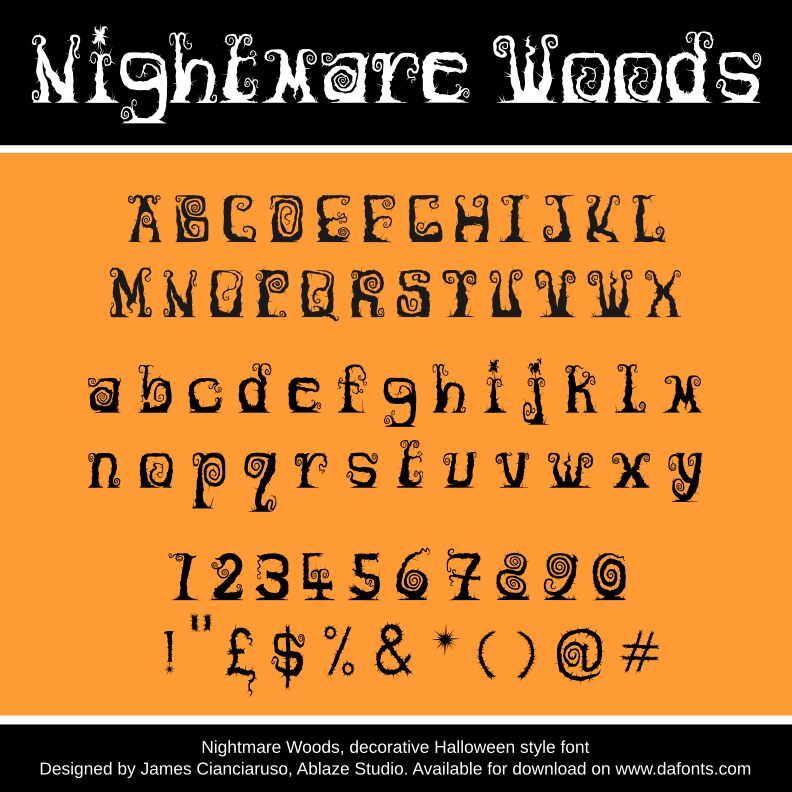
Nightmare Woods
Nightmare Woods, a haunting creation by James Cianciaruso of Ablaze, exudes an ominous allure. This distinct font captivates with its sharp, jagged edges and sinister flourishes, evoking a sense of darkness and mystery. The intricate, organic-inspired designs seamlessly blend together, forming a captivating visual tapestry that sends a chill down the spine.
This font's versatility shines through, making it a compelling choice for a wide range of design applications. From Halloween-themed branding and horror-inspired media to edgy editorial layouts and atmospheric event promotions, Nightmare Woods effortlessly captures the essence of the macabre. Its bold, attention-grabbing presence makes it a natural fit for projects seeking to conjure a sense of the supernatural and the undefinable.